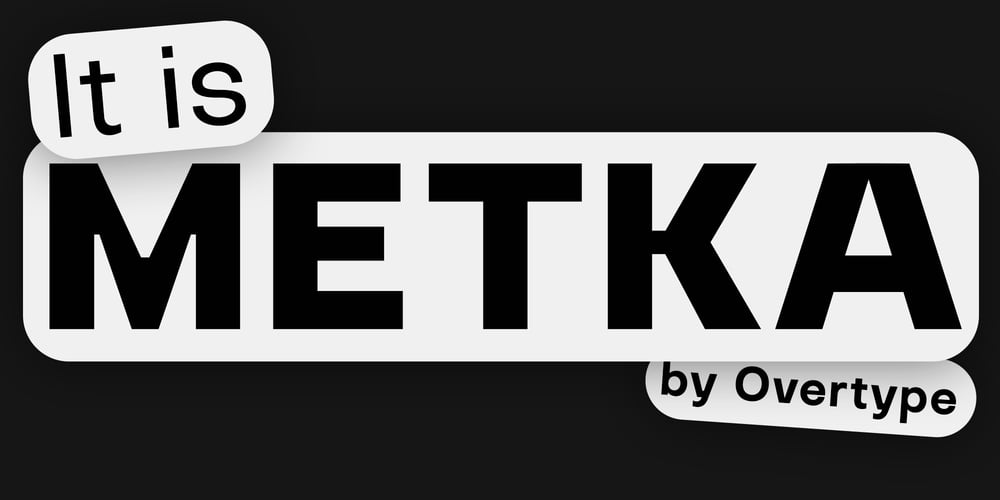
OT Metka Font Family was designed by Evgeniy Agasyants and published by Overtype. OT Metka contains 4 styles and family package options. Metka is an unconventional and fresh take on the classic sans serif, designed to stand out with its distinctive yet versatile style. Balancing modern aesthetics with a sense of creativity, Metka is perfect for designers seeking something unique while maintaining legibility and clarity.